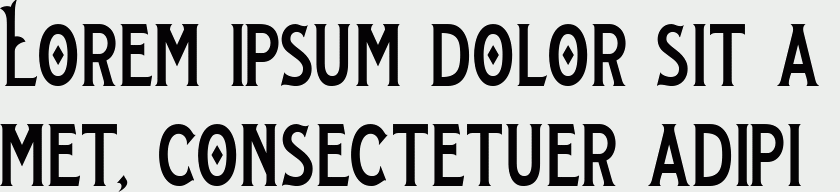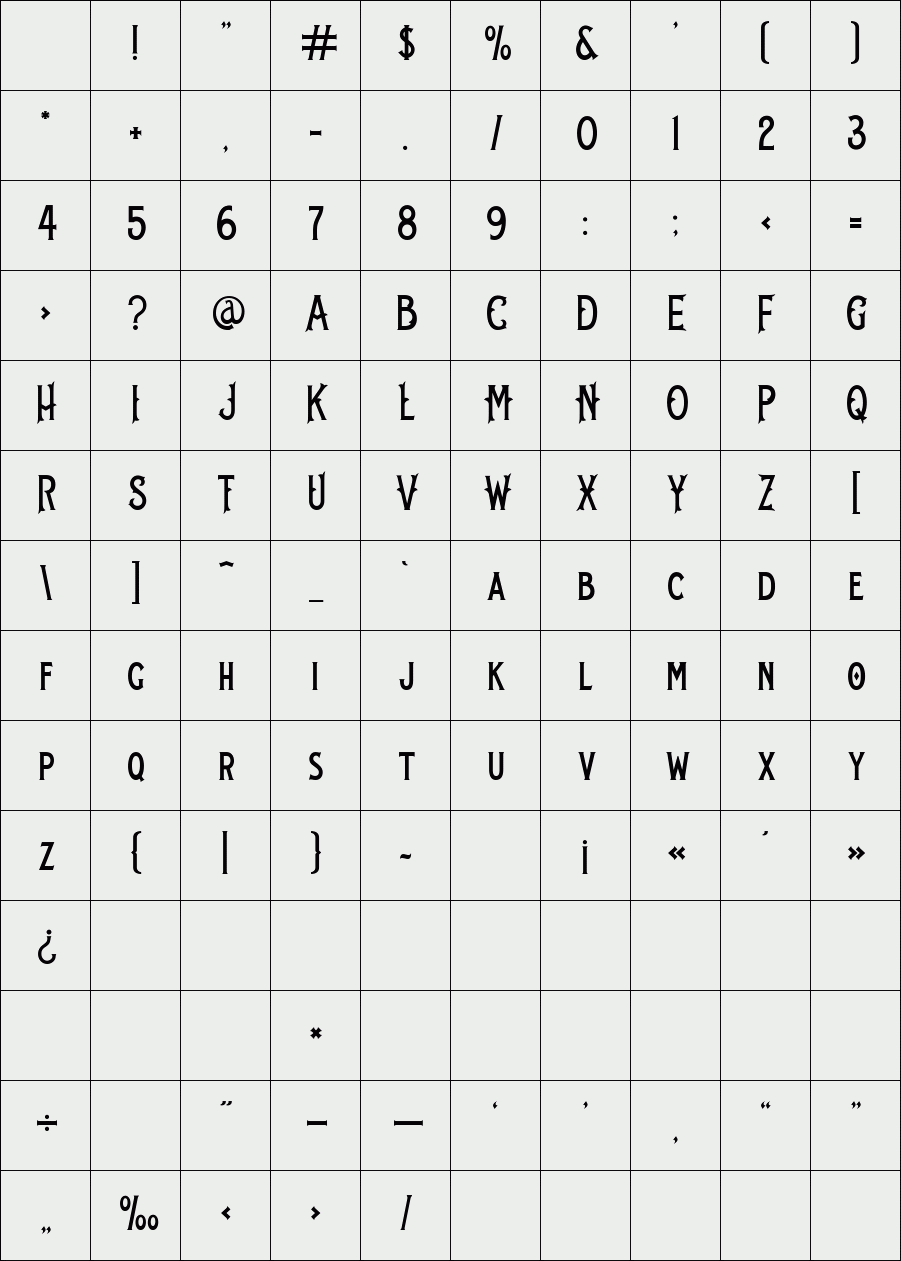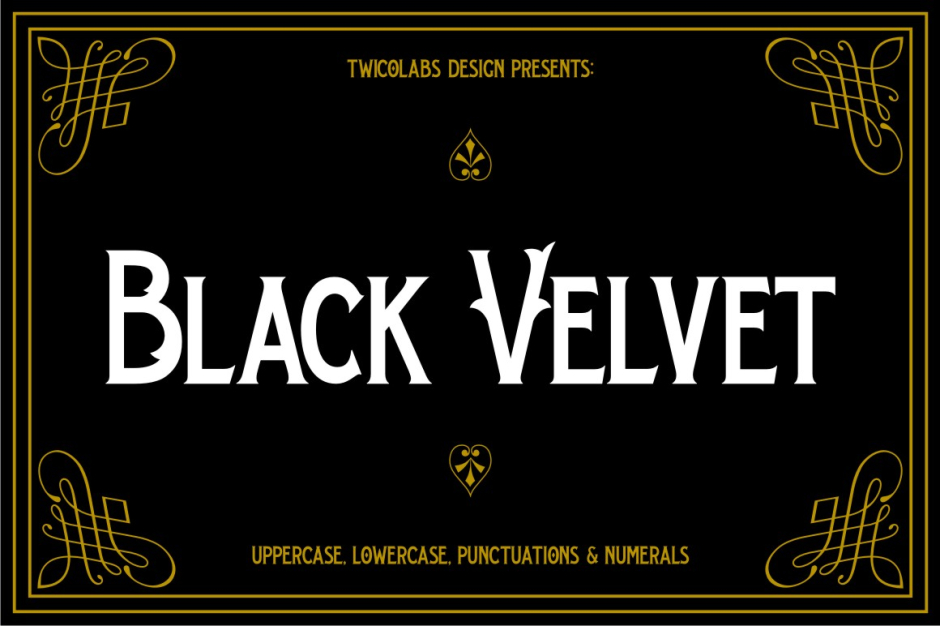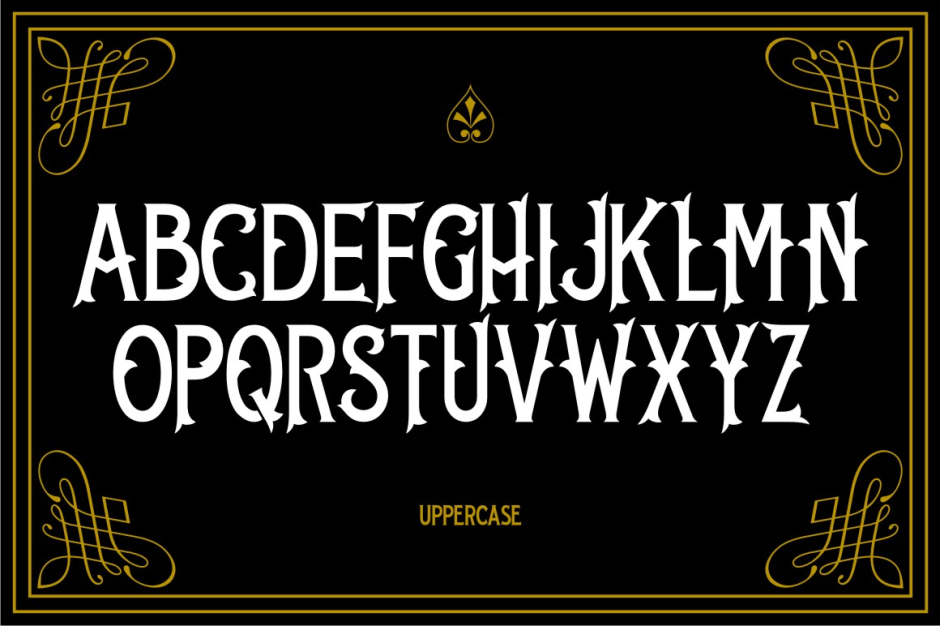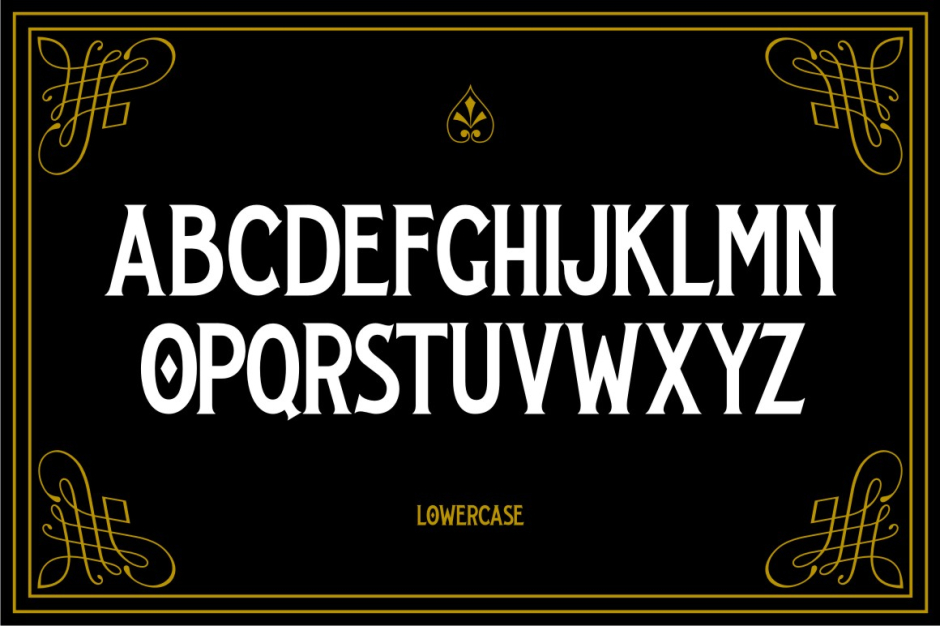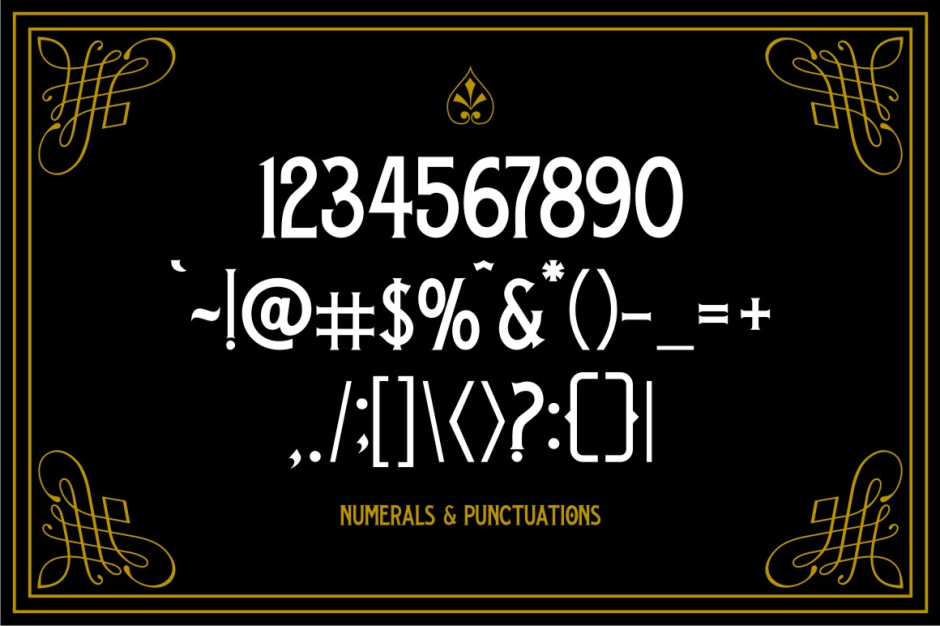
Black Velvet
Black Velvet is a font inspired by the old advertising letters in early 1900. Available in uppercase, lowercase, numerals & punctuations.